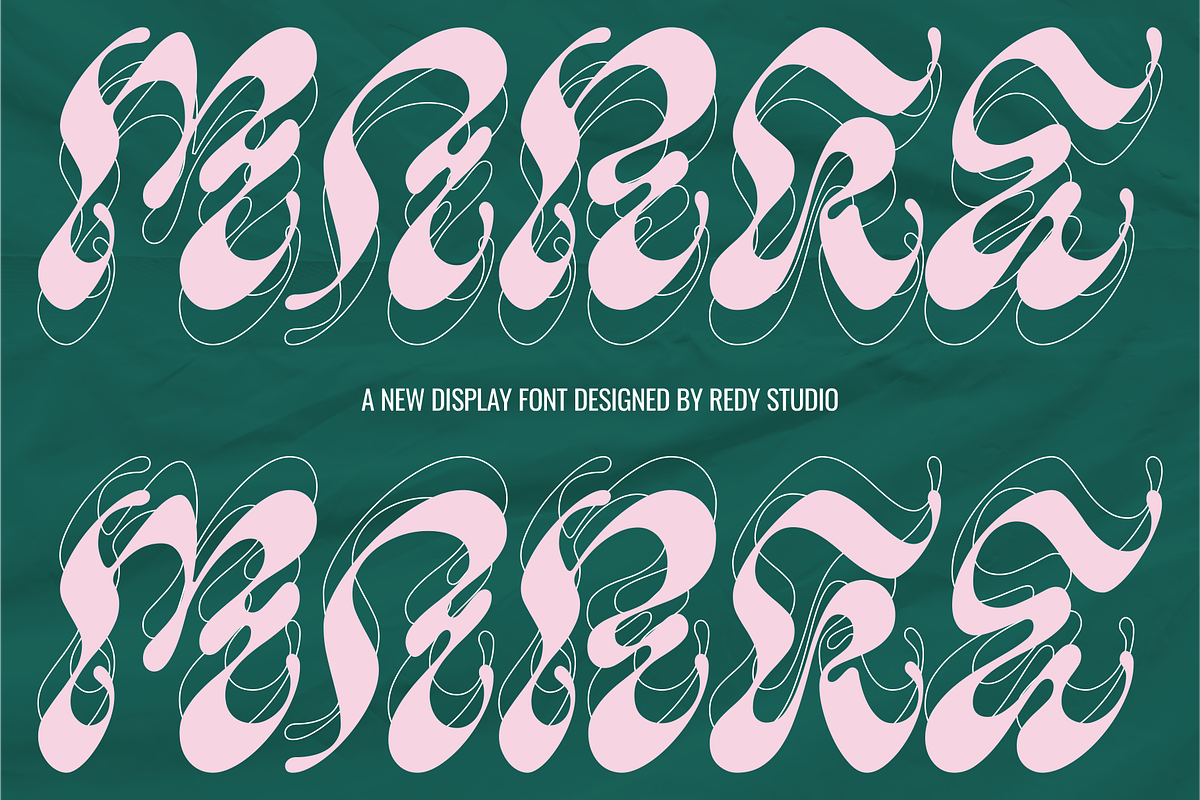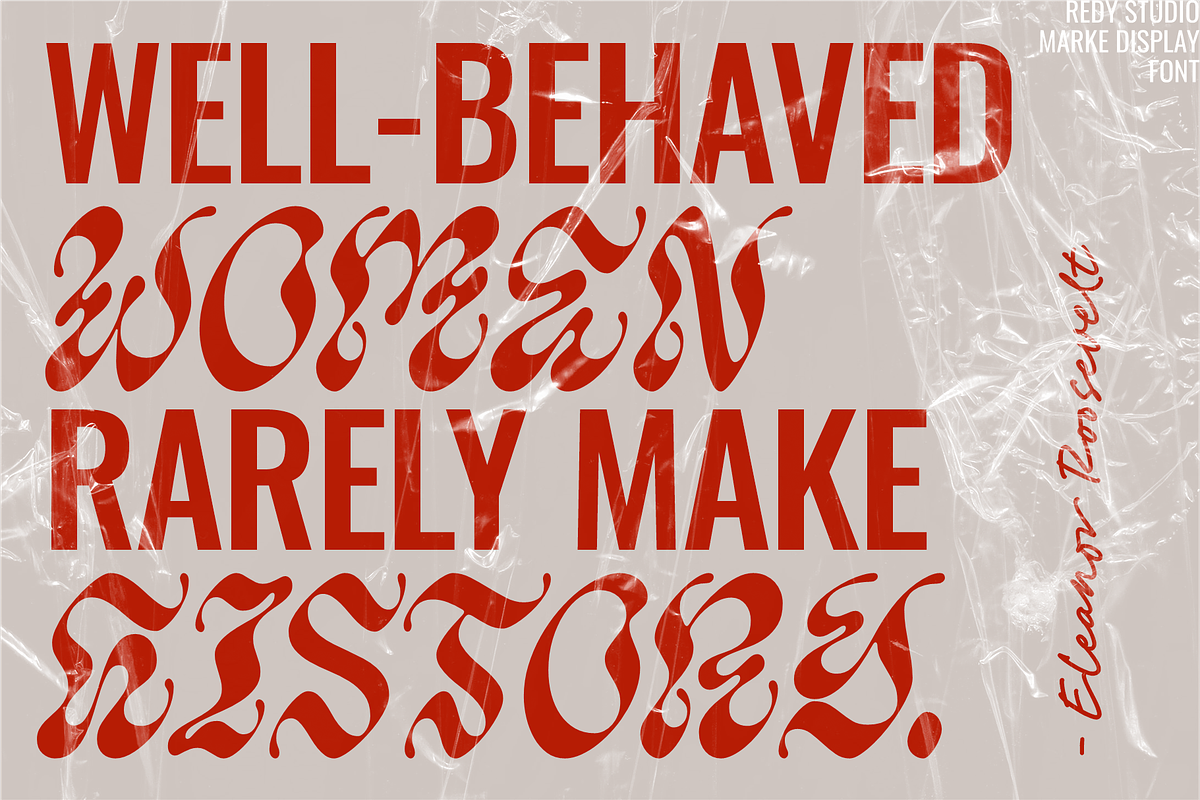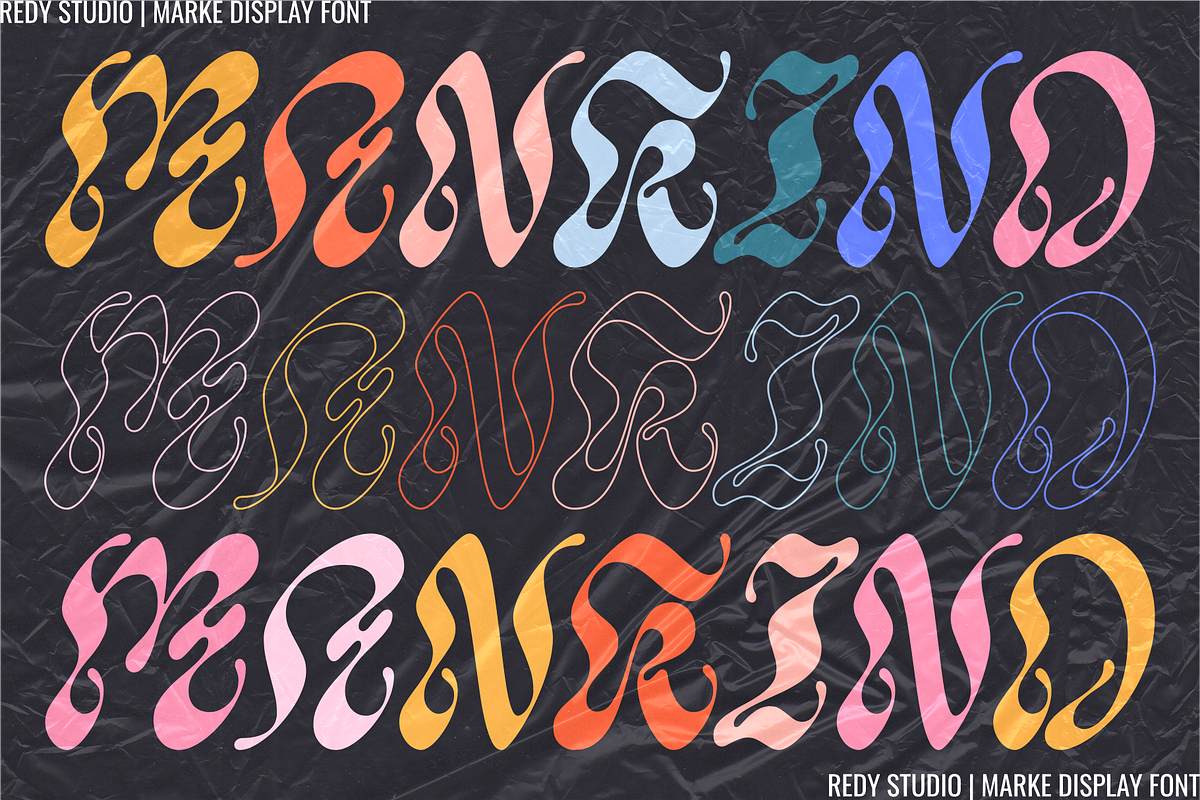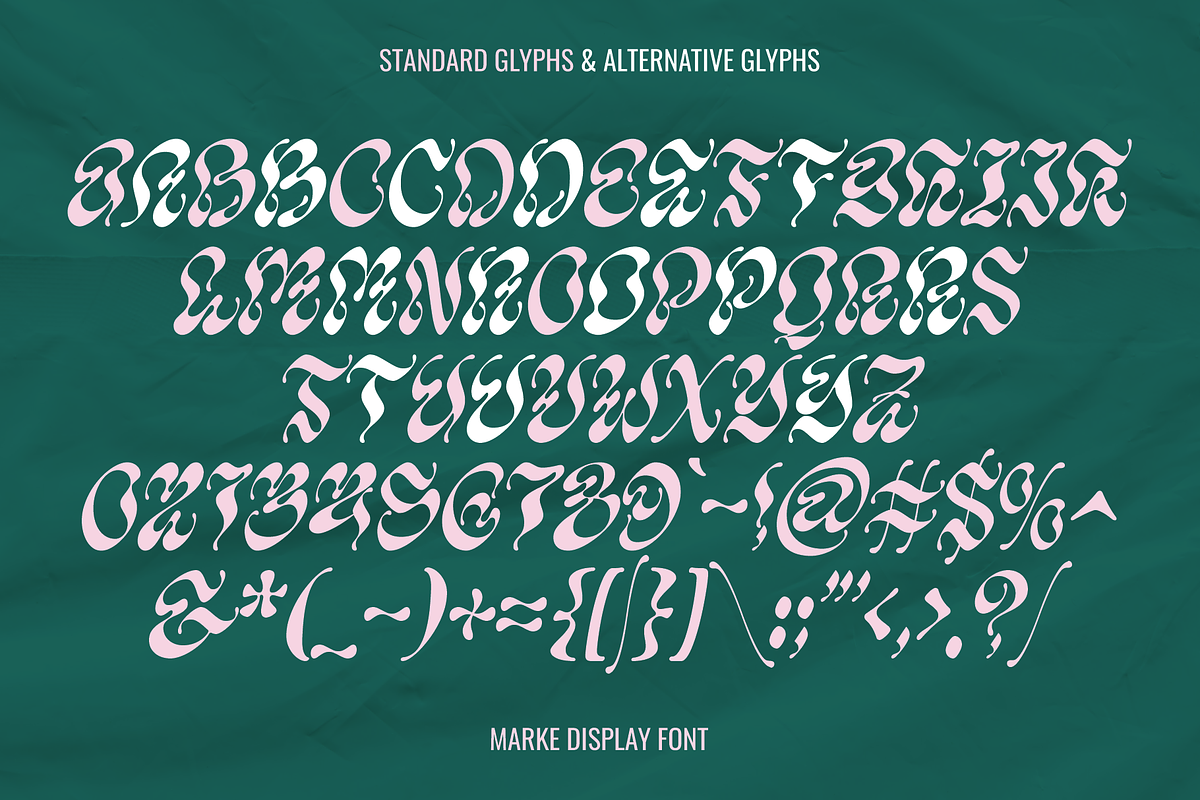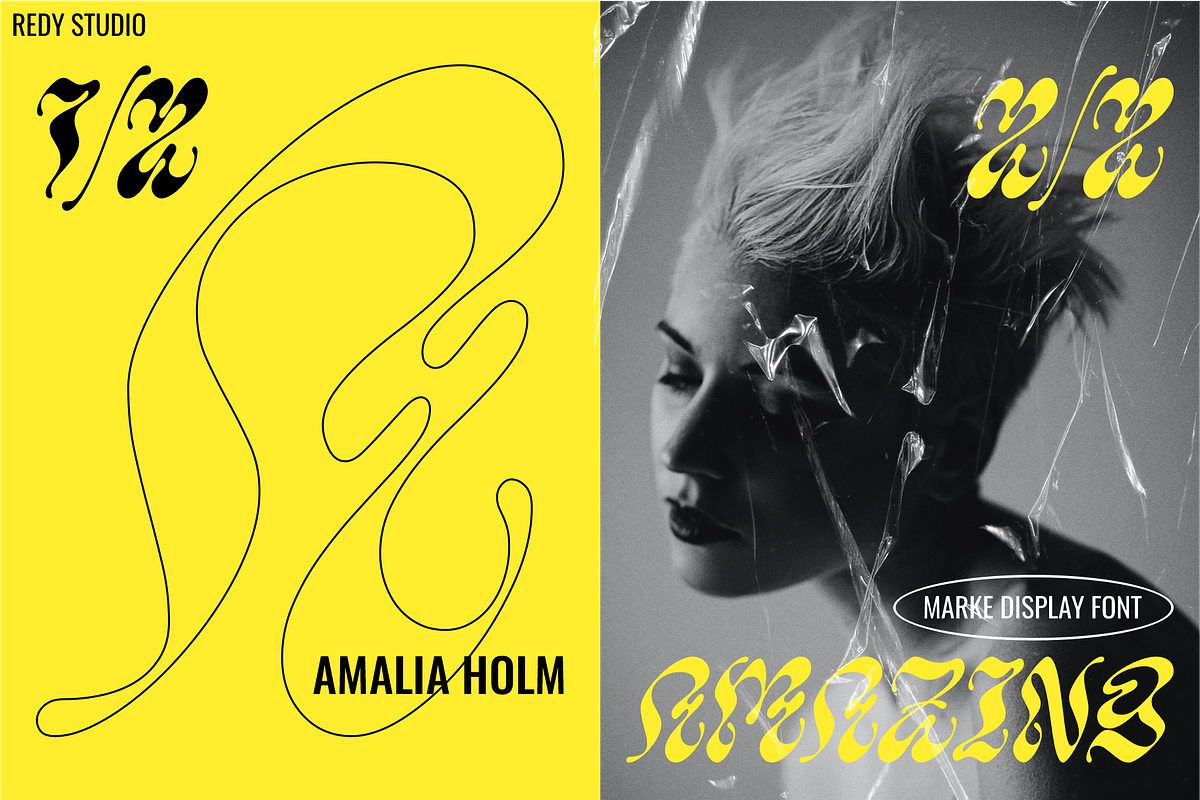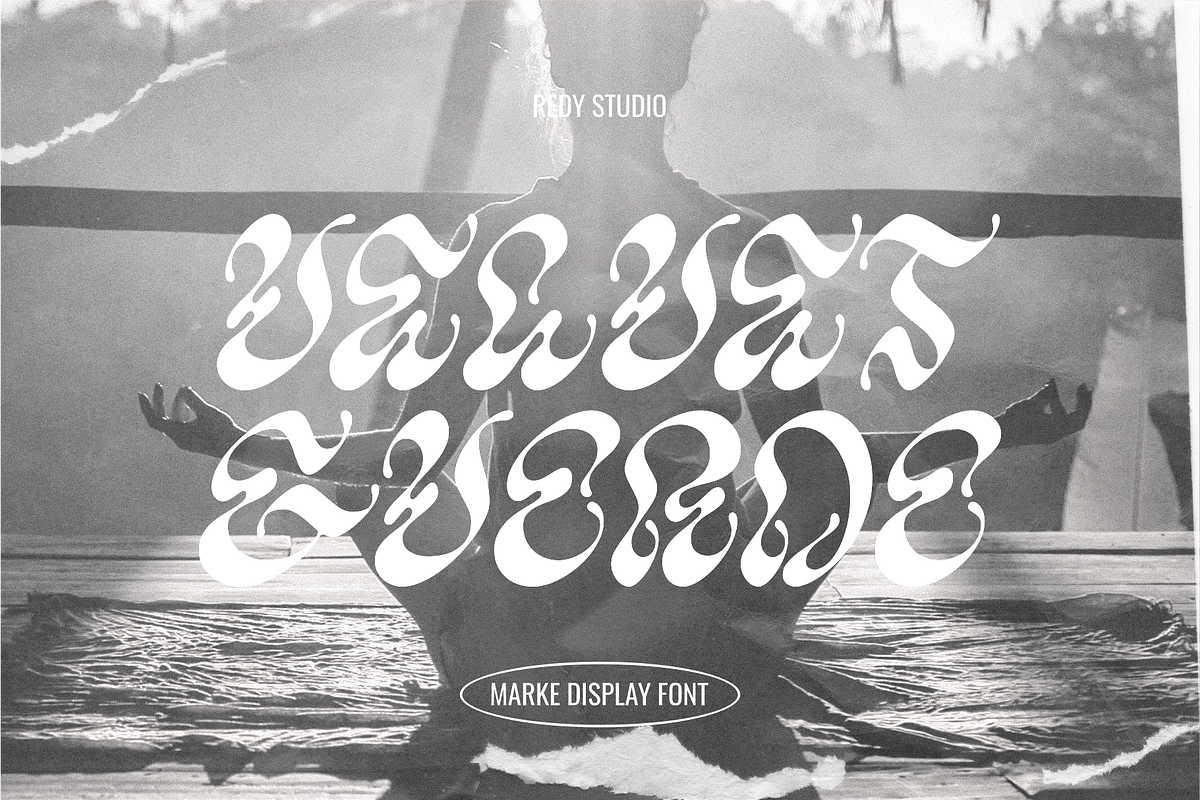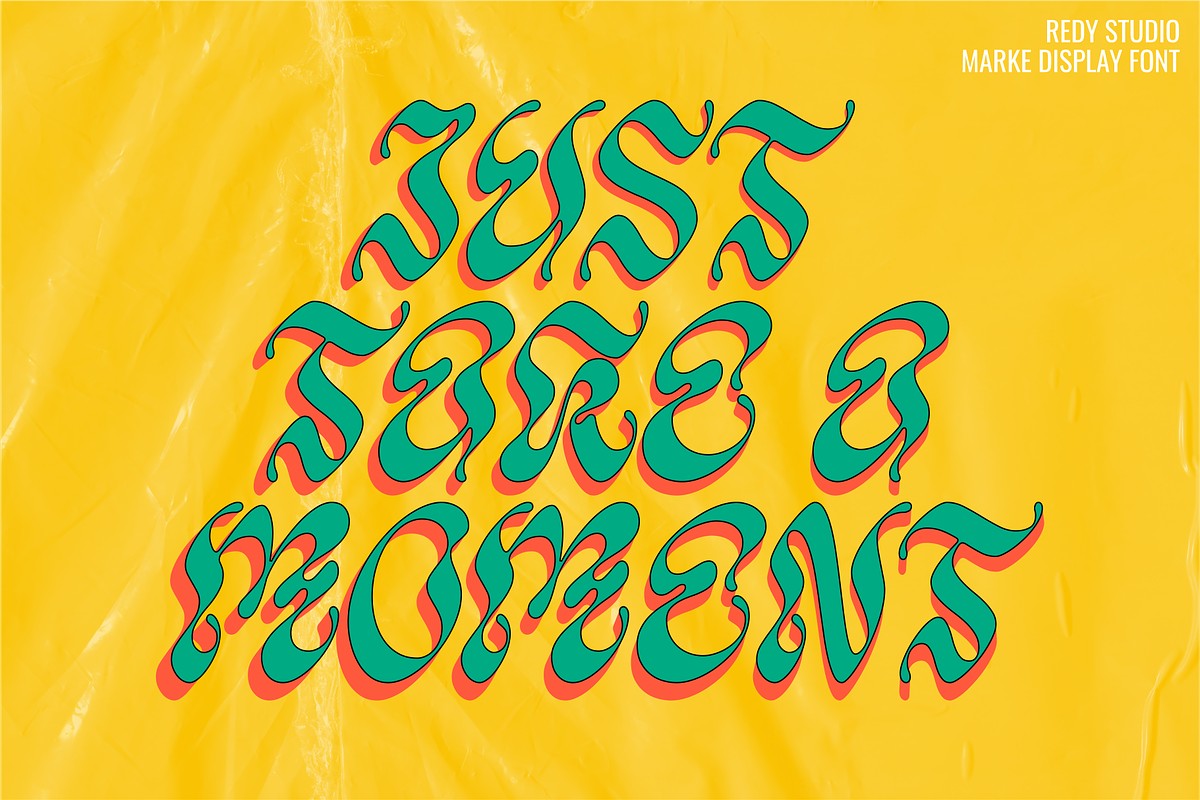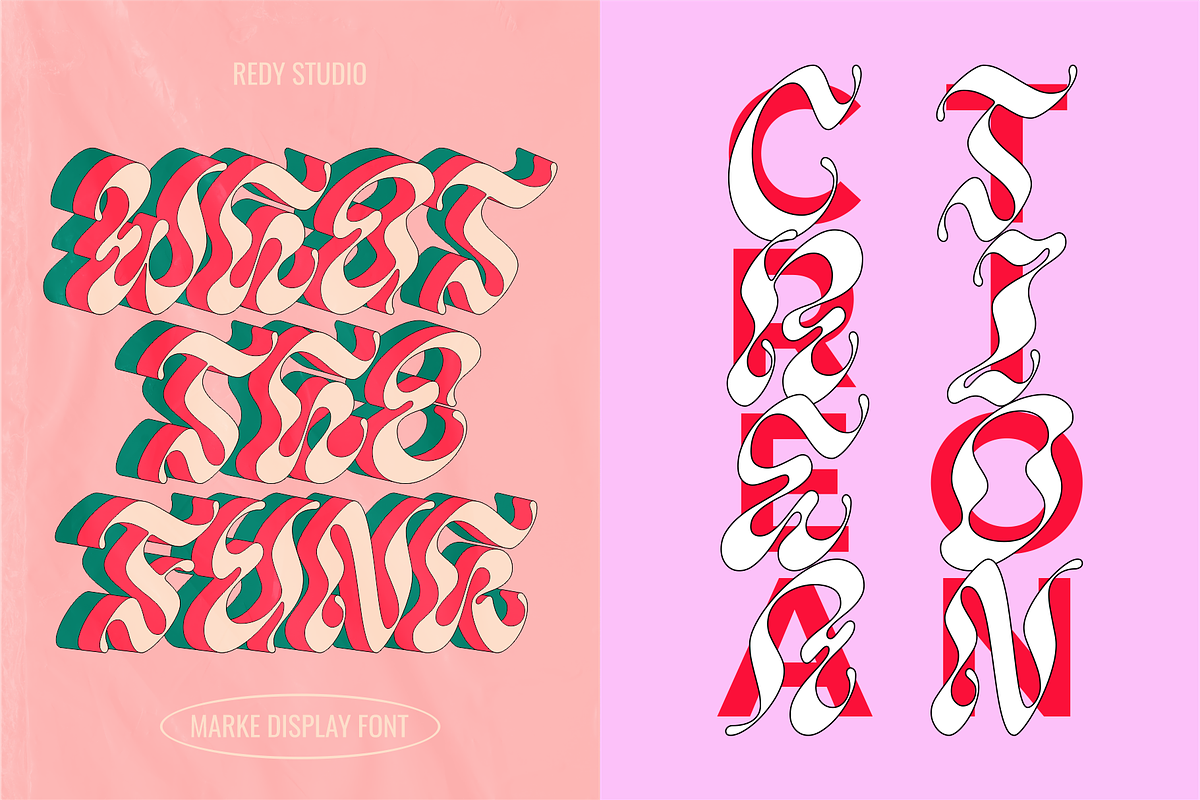
MARKE - DISPLAY FONT
Marke display font is a truly unique and mesmerizing font that brings a vibrant and mind-bending aesthetic to your designs. This font is specifically designed to captivate attention and evoke a sense of psychedelic art and culture.
Marke display font is characterized by its intricate and intricate letterforms that seem to warp and twist in mesmerizing patterns. Built for crafting one-of-a-kind designs, Marke display font is built with 26 glyphs, each character carefully designed to fit The font's curves and shapes are fluid, flowing, and often asymmetrical, creating a dynamic and visually striking appearance. Each letter is meticulously crafted to exude a sense of energy and movement, reflecting the vibrant and kaleidoscopic nature of psychedelic art.
The font's vibrant and psychedelic color palette further enhances its impact. It incorporates a range of bold and contrasting hues, from electric blues and vibrant pinks to intense yellows and vivid greens. This chromatic explosion adds an extra layer of visual interest, making it perfect for designs that aim to stand out and make a statement.
Marke Display Psychedelic Typeface is ideal for projects that require a distinctive and unconventional approach. It works particularly well for music festival posters, album covers, party invitations, and other visually engaging marketing materials. By using this typeface, you can instantly infuse your designs with a sense of energy, creativity, and countercultural flair.